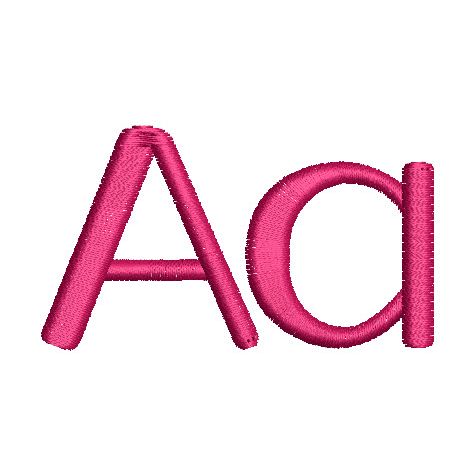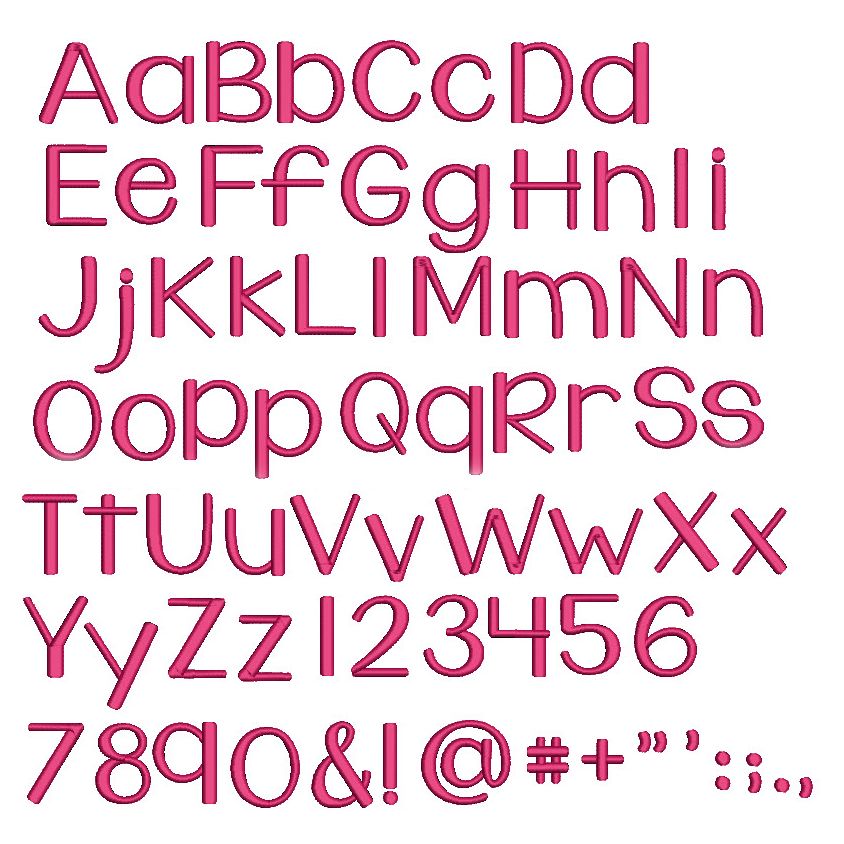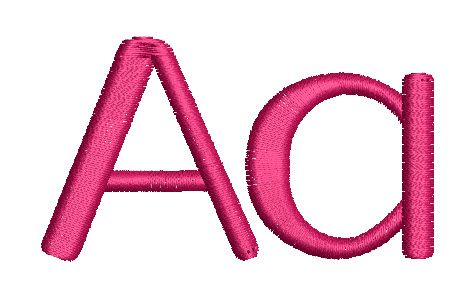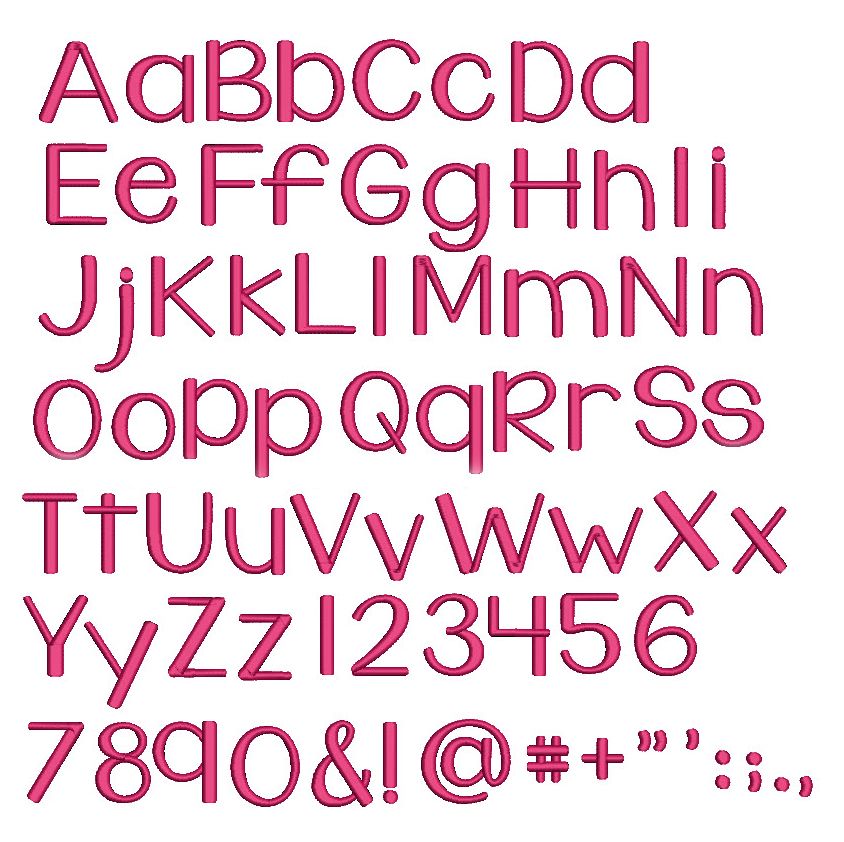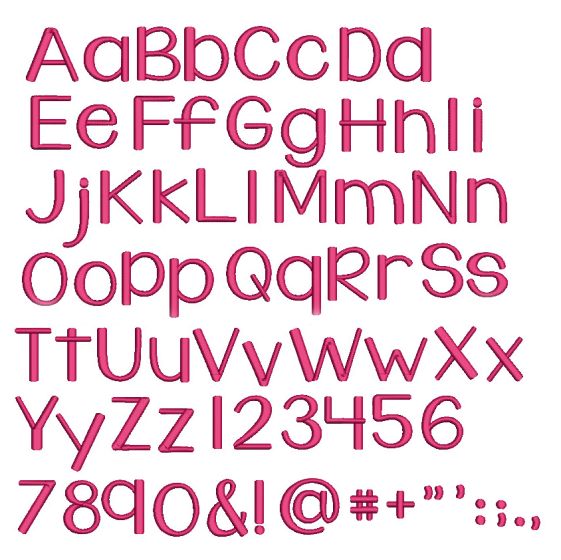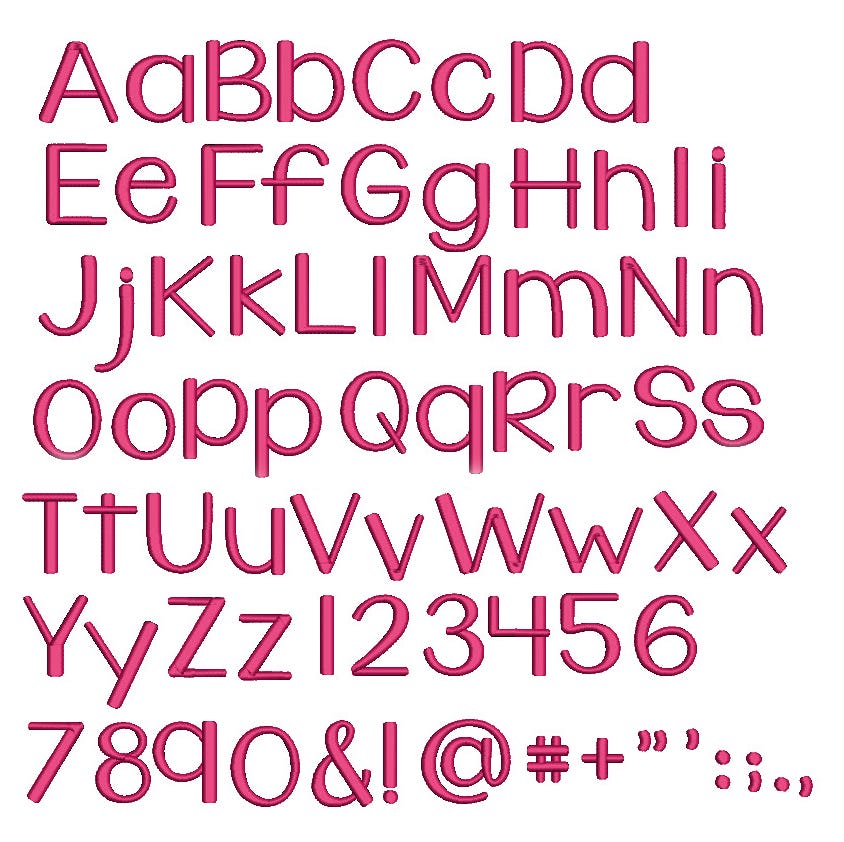
Dark Side Satin Stitch Embroidery Font
A super cute, thick font perfect for boys and girls. All of our font alphabets are 100% manually digitized to bring you maximum stitch quality.